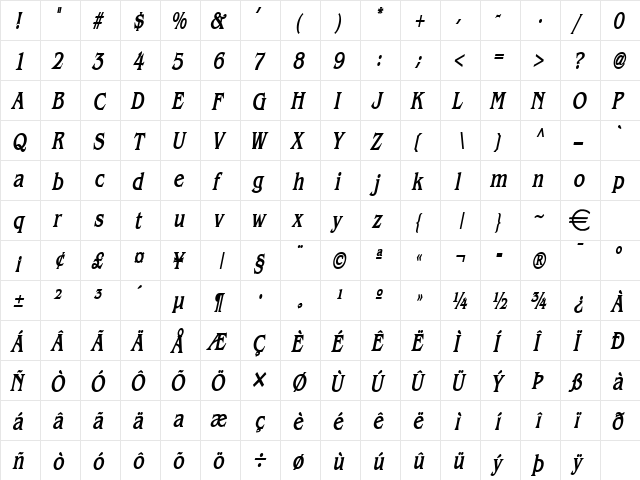
BangleThin BoldItalic
Design Context for BangleThin Typeface
BangleThin is a composed and adaptable typeface that performs quietly and consistently across a wide range of design contexts. The slanted form adds forward momentum and visual energy. The heavy weight commands attention and anchors typographic hierarchies.
Pro Tip: Try BangleThin for annotation and caption copy alongside an upright companion — the contrast in angle creates a dynamic but ordered typographic system.